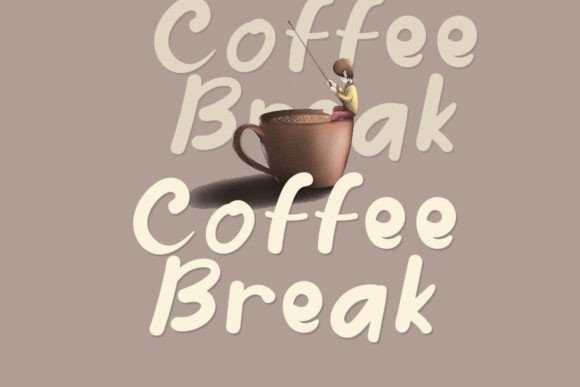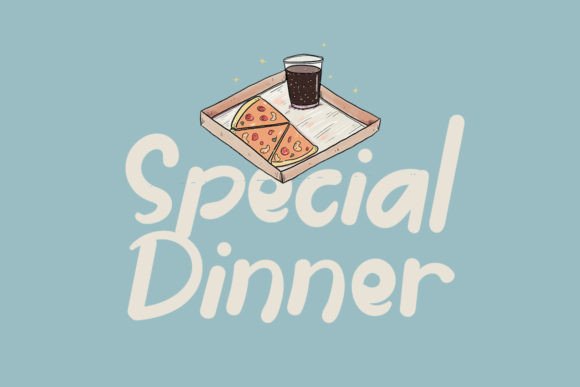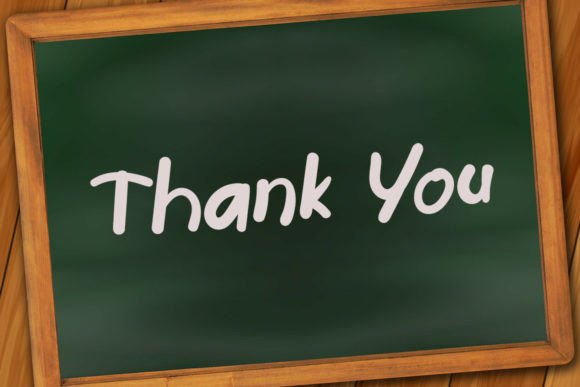
The Perfect Morning for Your Designs
There’s something magical about sipping your morning coffee, surrounded by the quiet of a new day, and feeling inspired to create something beautiful. It’s a moment when the world feels full of possibilities, and your imagination knows no bounds. As designers, we’ve all been there – with a blank page, a spark of an idea, and a desire to bring it to life.
That’s where the Breakfast Handmade Font comes in – a beautiful and sweet font that’s perfect for adding a touch of elegance and joy to your designs. This font is designed to simplify your design process, making it easy to create stunning projects that will leave a lasting impression. Whether you’re working on a formal or informal project, the Breakfast Handmade Font is sure to add a professional and personal touch.
Breakfast Handmade Font Key Features
- Font Family: Breakfast Handmade Font is a unique, handwritten font designed to add a personal touch to your designs.
- Character Set: The font includes a comprehensive character set, including uppercase and lowercase letters, numbers, punctuation, and special characters.
- Resolution: The font is designed for use at any resolution, making it suitable for both print and digital applications.
- Unique Characteristics: Breakfast Handmade Font features a hand-drawn, organic feel with subtle imperfections, giving it a distinctive and charming appearance.
Designer Review: Breakfast Handmade Font
Breakfast Handmade Font is a charming and whimsical typeface that exudes a sense of warmth and nostalgia. Here are some of its notable features: ✨
- Unique Handmade Feel: The font’s irregularities and imperfections give it a one-of-a-kind look that’s perfect for adding character to designs.
- Expressive Character Set: Breakfast Handmade Font includes a wide range of characters, including letters, numbers, and punctuation marks, making it suitable for a variety of projects.
- Customizable: The font comes with multiple styles, weights, and ligatures, allowing designers to experiment and find the perfect combination for their design.
- Legibility Issues: The font’s handmade nature can sometimes make it difficult to read, especially at smaller sizes or in certain contexts.
- Limited Font Size Options: While the font comes with multiple styles, the number of font sizes available can be limited, which may restrict its use in certain projects.
Overall, Breakfast Handmade Font is a delightful and versatile typeface that can add a touch of personality to designs. While it may not be suitable for all projects, its unique charm and expressiveness make it a great choice for designers looking to create something truly special.
Practical Application Guide for Breakfast Handmade Font
For the best results, use Breakfast Handmade Font for titles, headings, and other emphasis text. This font is perfect for:
- Craft and DIY projects
- Food and recipe blogs
- Home decor and interior design projects
Remember to adjust the font size and style to match the tone and style of your project.
Alternatives to Breakfast Handmade Font
Great Vibes Font is a modern, handwritten font that exudes a carefree and casual vibe. It’s perfect for designers who want to create a relaxed, beachy feel in their designs. Great Vibes Font is similar to Breakfast Handmade Font in its organic, handwritten style, but it has a more laid-back and effortless feel.
Carolyna Pro Font is a high-end, handwritten font that’s perfect for designers who want to add a touch of sophistication to their designs. It’s similar to Breakfast Handmade Font in its elegant, handwritten style, but it has a more refined and polished feel. Carolyna Pro Font is ideal for use in luxury branding, advertising, and editorial design.
For optimal readability, we recommend using font sizes between 12pt and 24pt, with a line height of 1.2 to 1.5 times the font size. This will help maintain a clear and visually appealing layout.